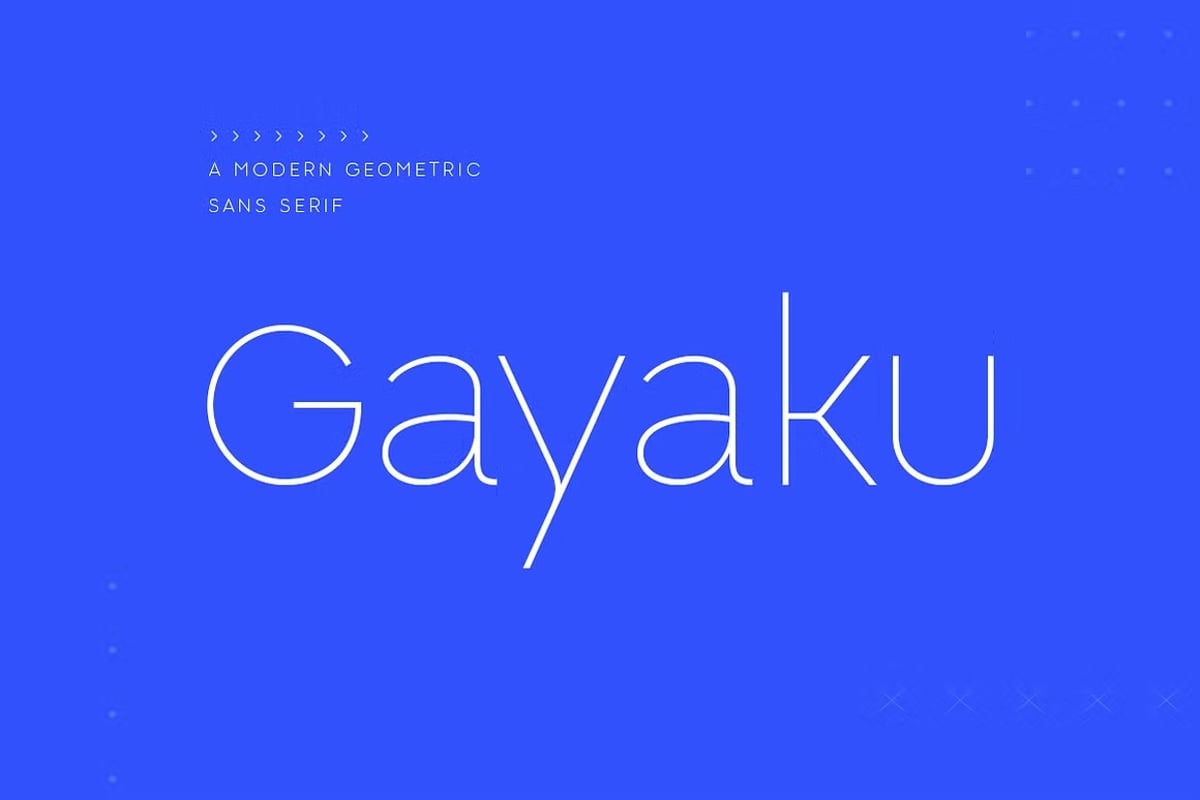
Gayaku - Modern Sans Serif Font
Gayaku delivers modern sophistication with clean geometric lines perfect for contemporary brand identity projects. This distinctive sans serif typeface combines unique character shapes with corporate-level professionalism, making it an ideal solution for designers and brand owners seeking to elevate their visual identity with a fresh, modern aesthetic. What's included with Gayaku: Multiple creative styling options for design flexibility 3 professional file formats: .otf, .ttf, .woff Design inspi...